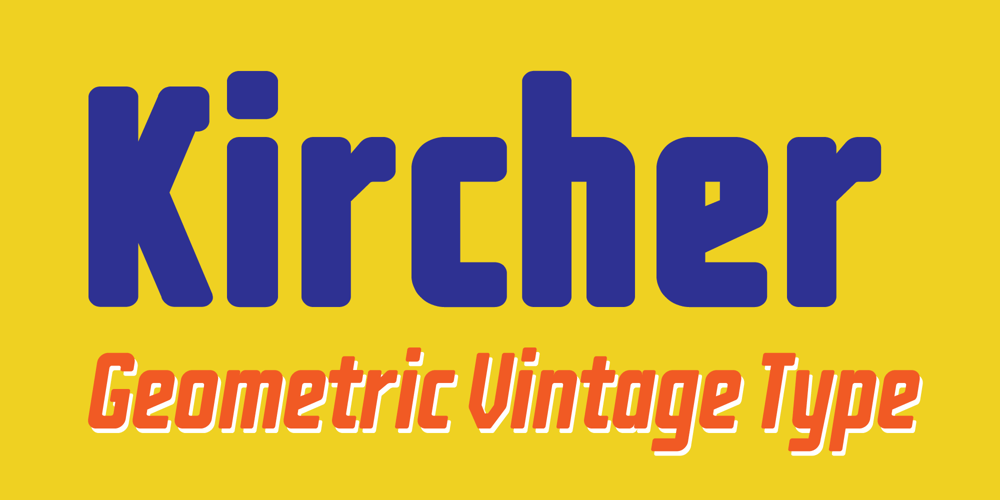
Kircher
Kircher font
Kircher Font Family was designed by Pedro Biz and published by Turto Studio. Kircher contains 4 styles and family package options. Kircher is a type family inspired by old building facade letterings. It is a vintage style geometric sans serif typography great for logos, banners, posters and graphic artists.